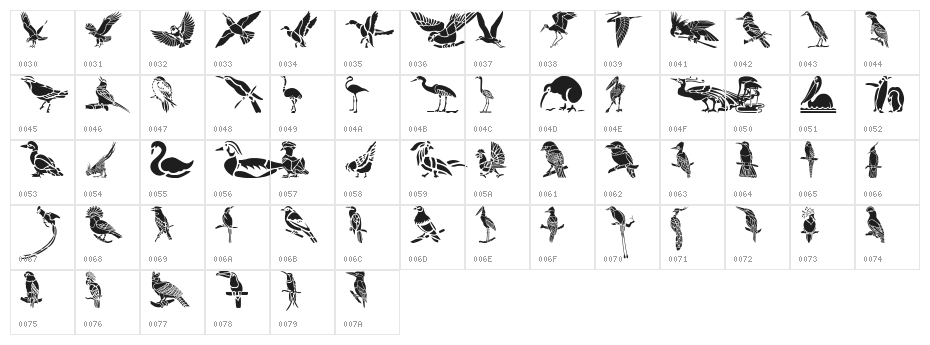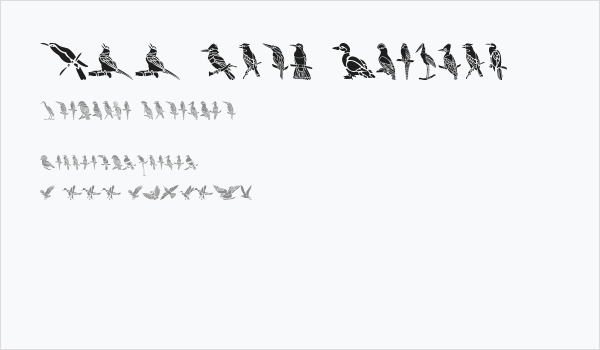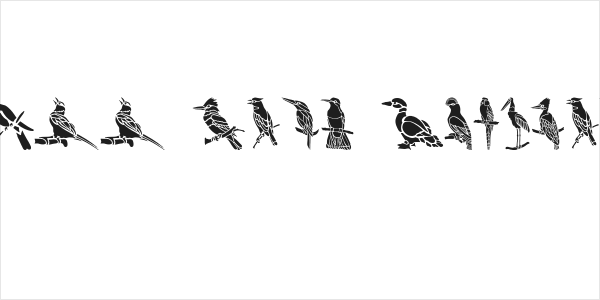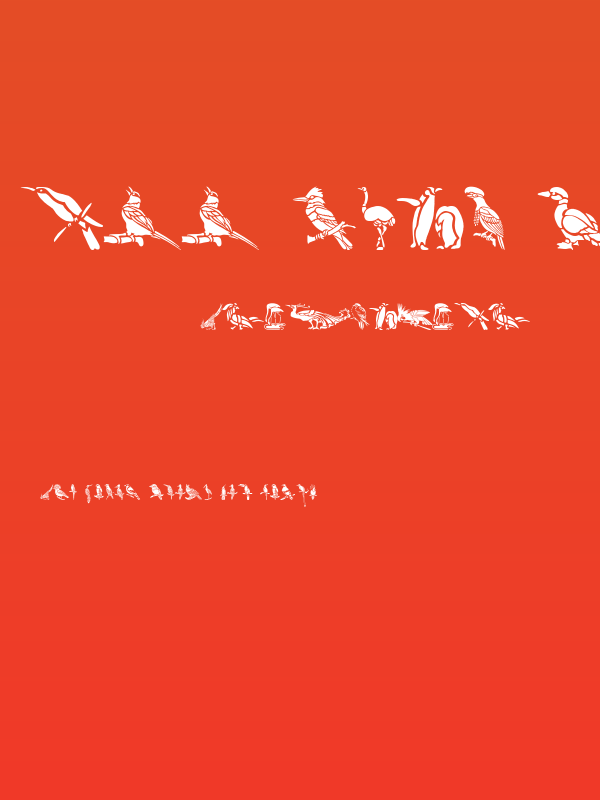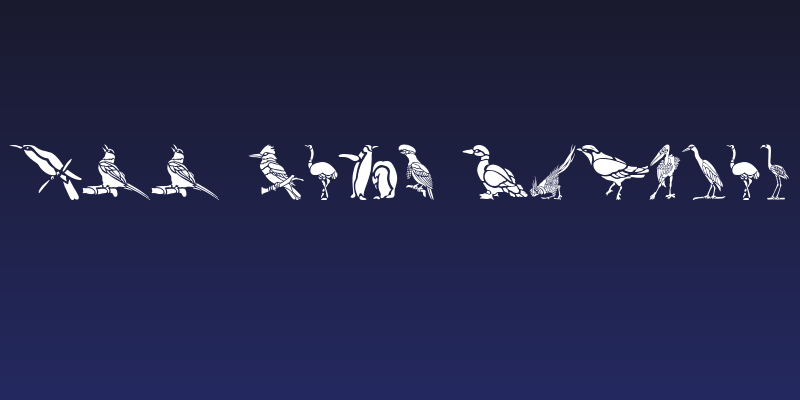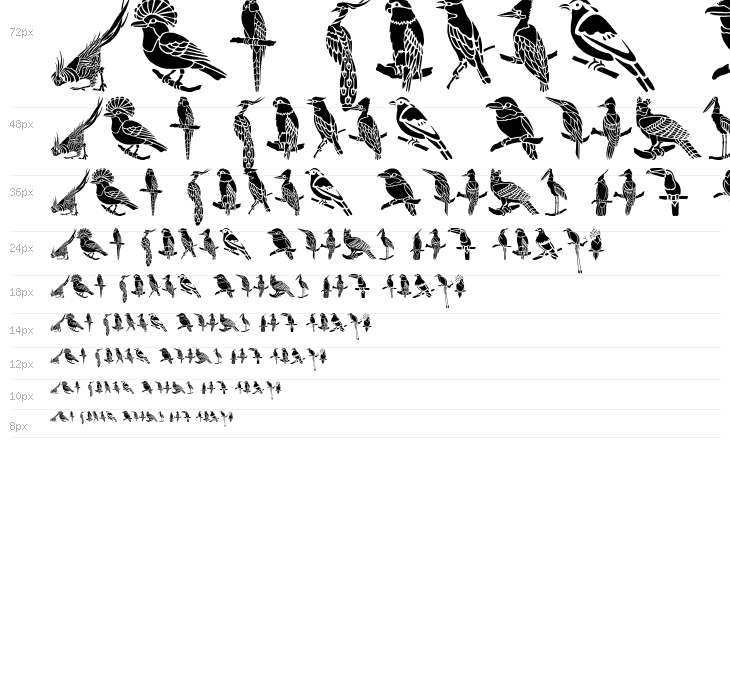
HFF Bird Stencil Font
HFF Bird Stencil Description
A decorative display font featuring detailed black-and-white stencil silhouettes of various bird species, each character represented by a unique bird illustration. The glyphs are highly stylized and illustrative, with strong contrast and clear cut-out shapes.
| Overall Style | Decorative, Illustrative, Nature-inspired |
| Use Case | Logos, Headlines, Posters, Themed graphics |
| Proposed Projects | Nature posters, wildlife branding, educational materials, decorative headlines, themed invitations. |